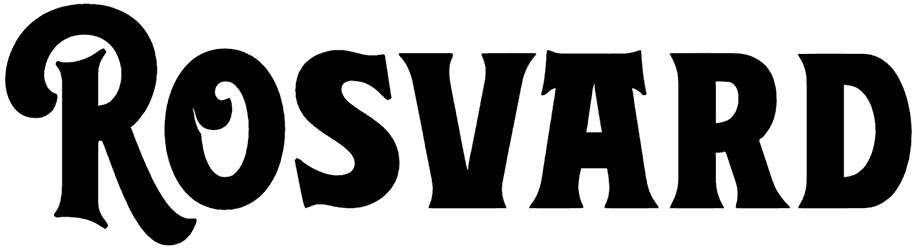
Rosvard Font
Rosvard is a retro font that comes with clean shapes and accurate curves, so it can add a minimalistic touch to your artwork such as illustrations, restaurant menus, social media posts, brochures, and logos.
The good news about this majestic typeface is that it offers two different versions of uppercase letters for graphic designers. Considering its ability in instilling a sense of drama, classic, precision, and dynamic, the lack of lowercase letters, numbers, and punctuation is a negligible deficiency.